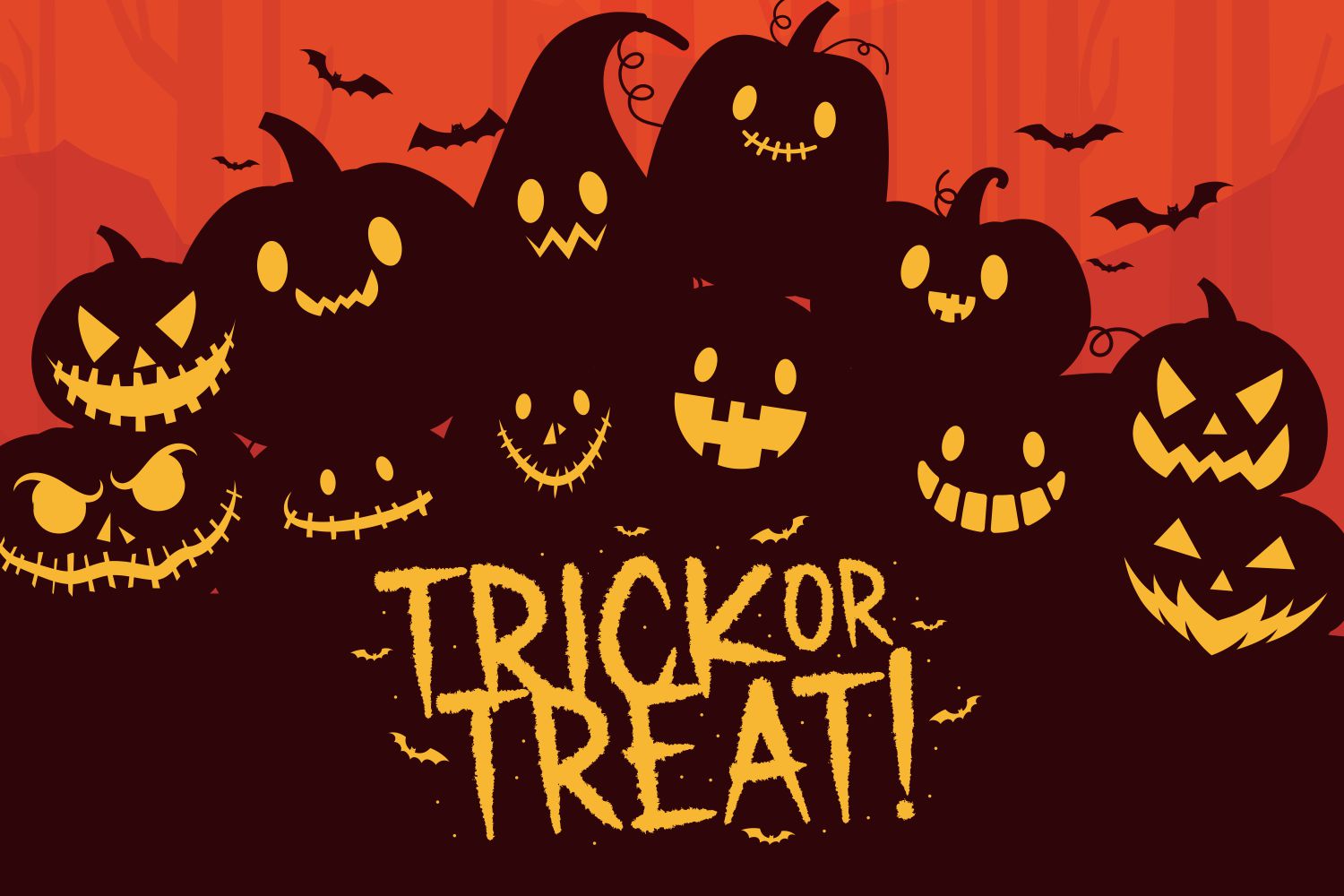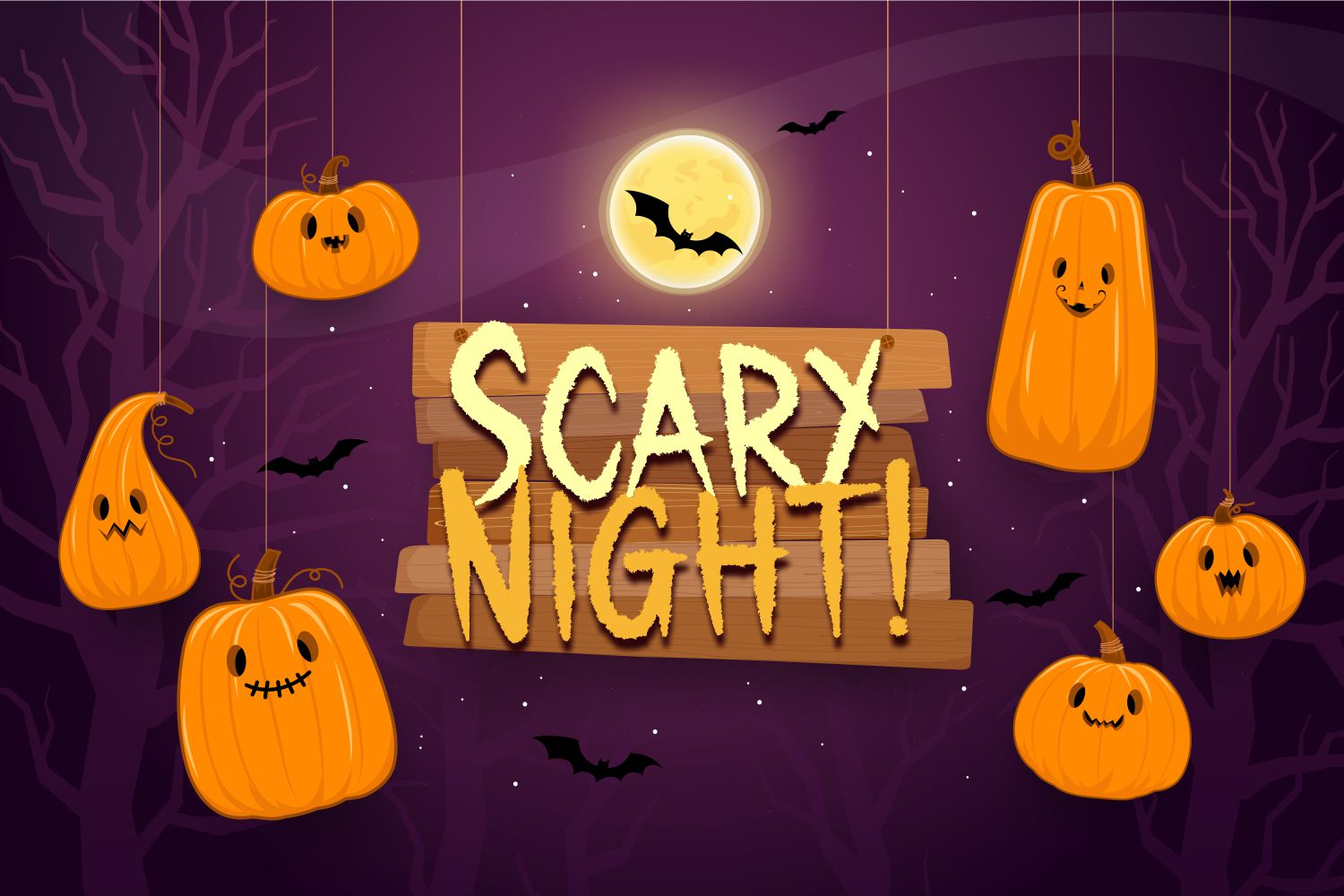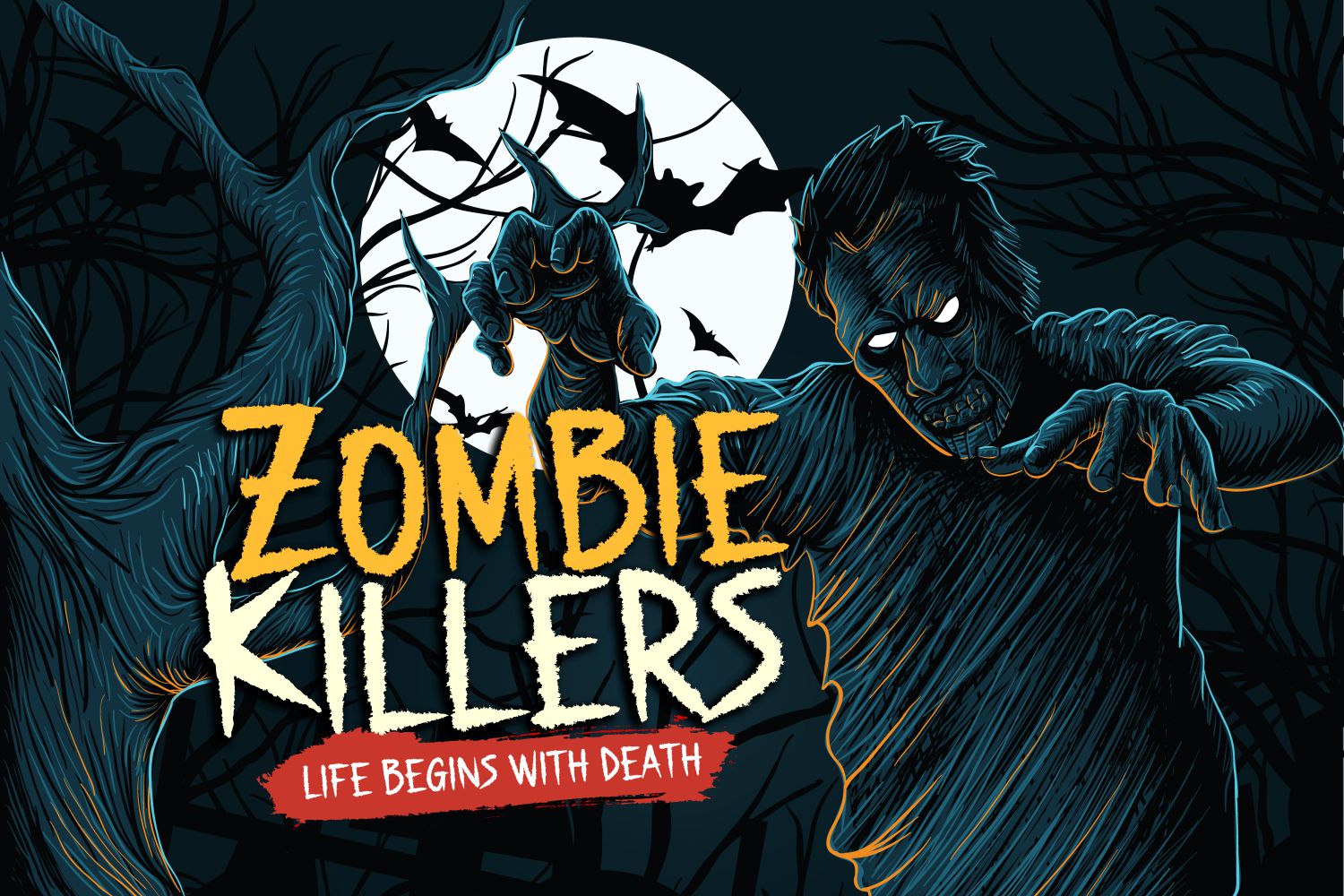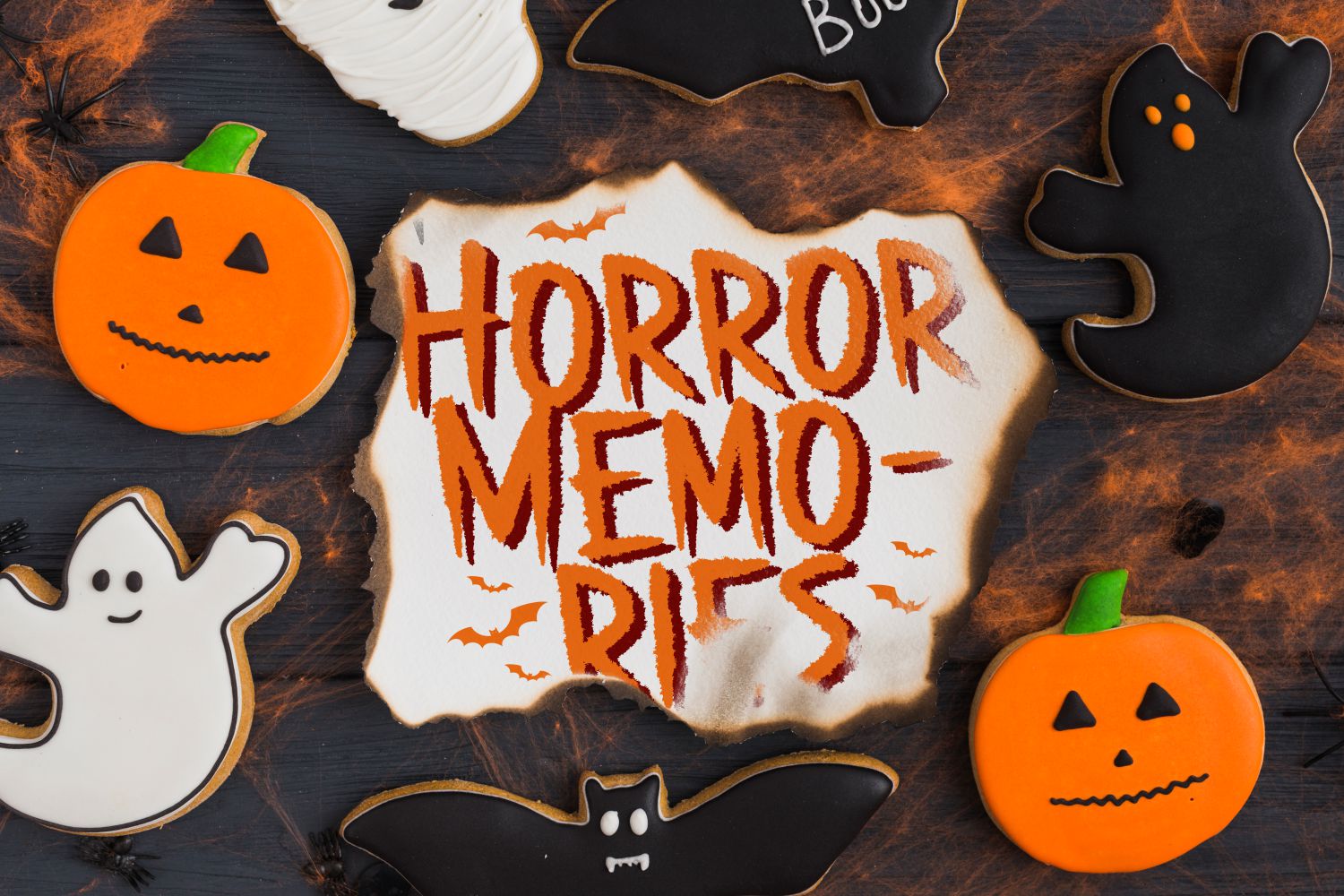
Gecko Moria Display Font
It\’s a simple and neat display font. Whether you’re using it for crafting, digital designing, presentations or greeting cards making, it’s perfect!